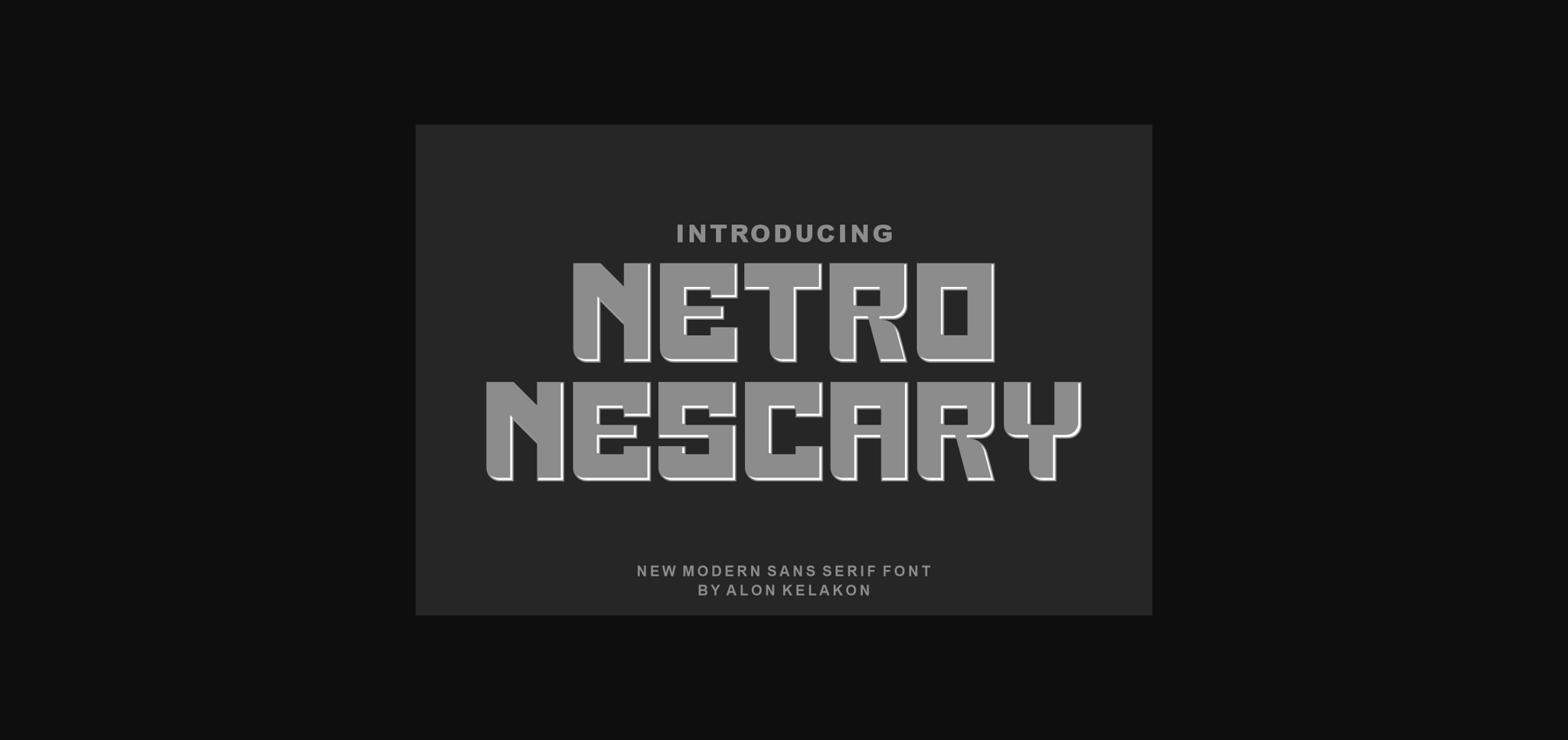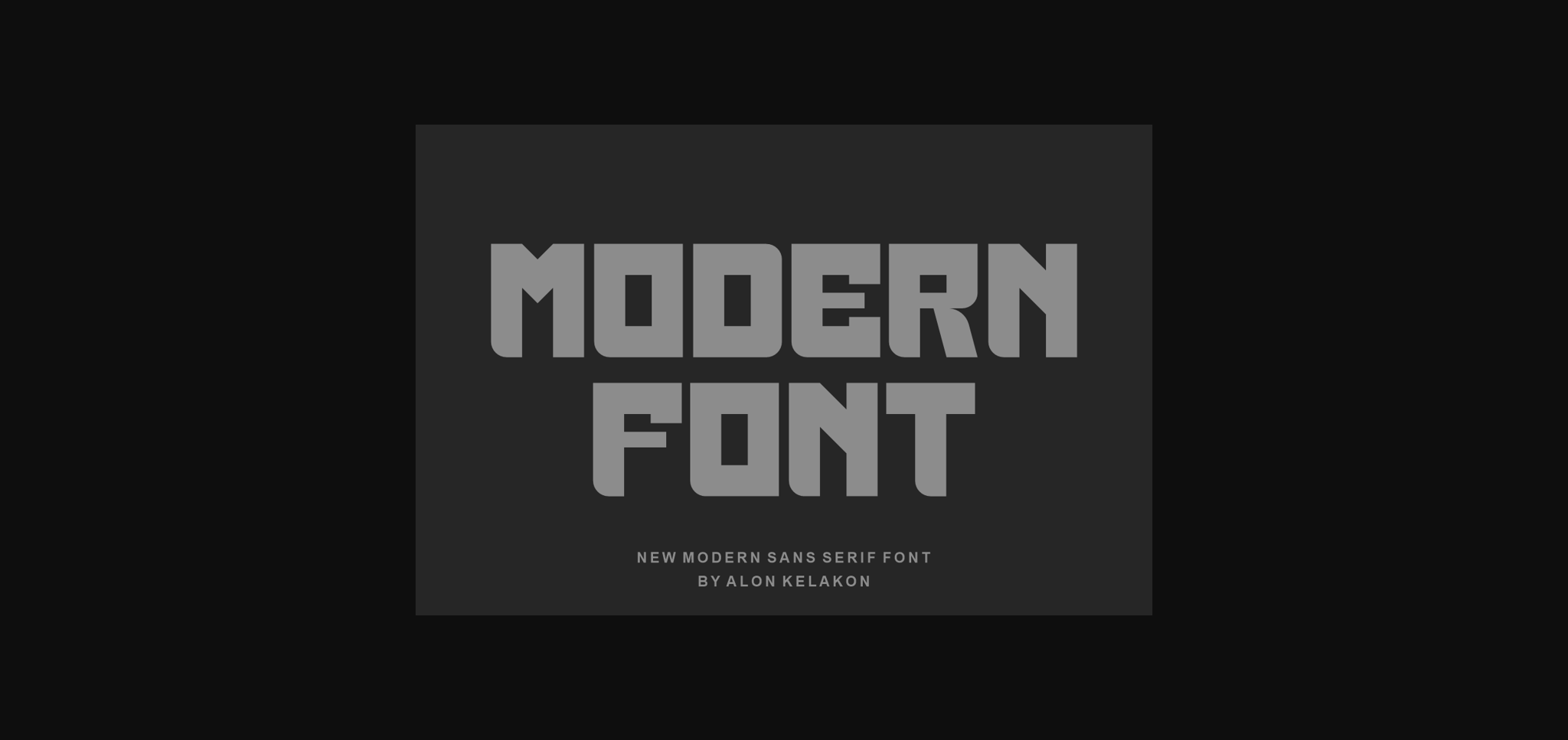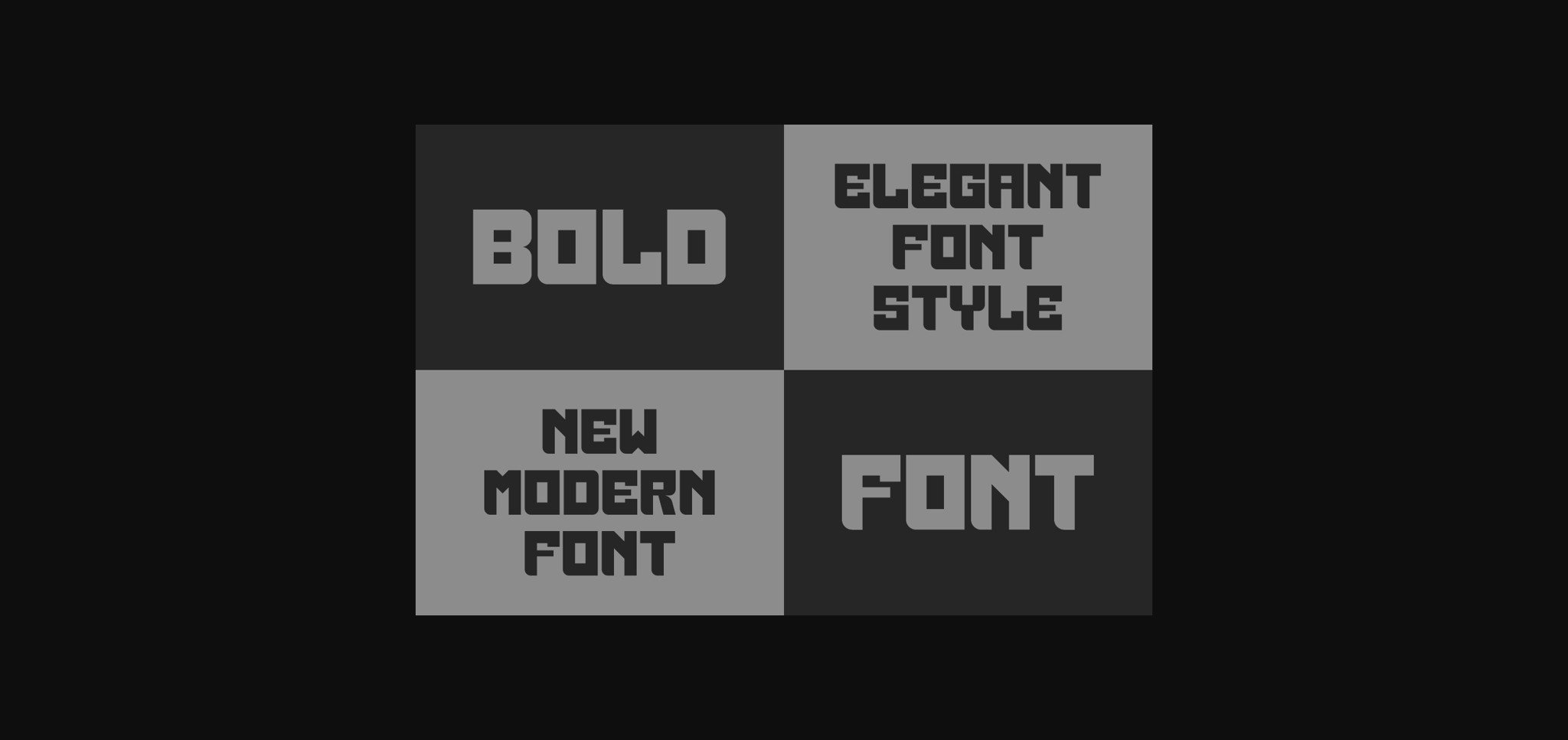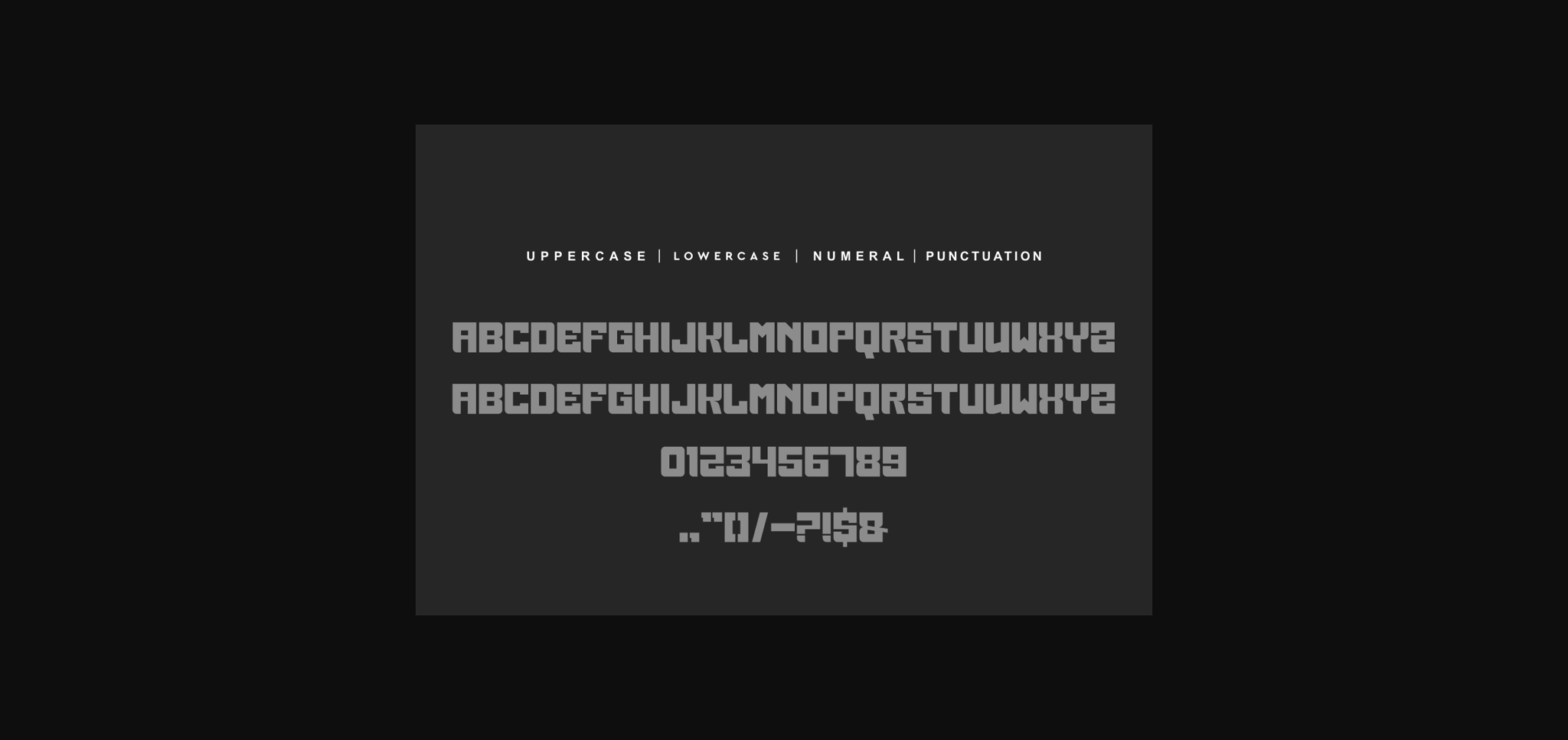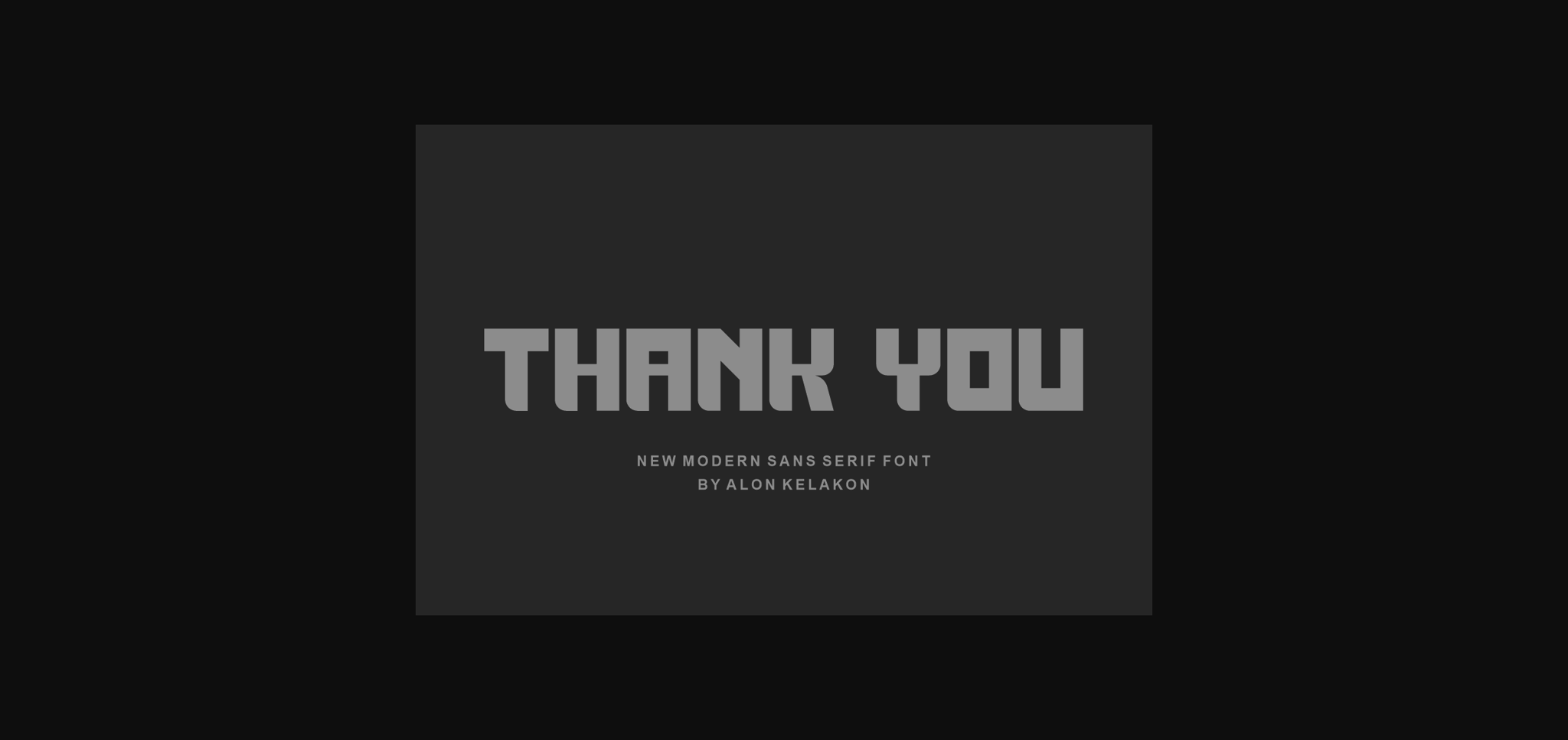
HomeSans Serif FontsNetro Nescary Font Sans Serif Fonts Netro Nescary Font FacebookXPinterestWhatsApp 1 of 7 ... Netro Nescary Font Poster 2... Netro Nescary Font Poster 3... Netro Nescary Font Poster 4... Netro Nescary Font Poster 5... Netro Nescary Font Poster 6... Netro Nescary Font Poster 7... About Netro Nescary Font Netro Nescary is a modern and stylish display font. Masterfully designed to become a true favorite, this font has the potential to bring each of your creative ideas to the highest level! DOWNLOAD NOW People also explored Magnolia Font Monocracy Vintage Cybergame Font Amstilda Sellena Script Font Beautiful Spring Font Thenicle Extra Black Font Offline Kerbidam Font 347 0 TagsNetro Nescary Font Previous articleKod\’s Hulling FontNext articleErinko Font LEAVE A REPLY Cancel reply Comment: Please enter your comment! Name:* Please enter your name here Email:* You have entered an incorrect email address! Please enter your email address here Website: Save my name, email, and website in this browser for the next time I comment. Personal Use Free Sushi Day Personal Use Free Read more about this font Monogram Calligraphy Personal Use Free Read more about this font Dandelions Bloom Personal Use Free Read more about this font Folgore Personal Use Free Read more about this font BLOG Free Fonts Risk: Why Free Fonts Can Be Dangerous for Designers Free Fonts Risk: Why Free Fonts Can Be Dangerous for Designers Using free fonts is a common practice in web and graphic design. However, the... How to Cut Any Font on Cricut: Convert a Font to SVG (Free) Exploring Font Trends To increase your work productivity, choose the most readable fonts.